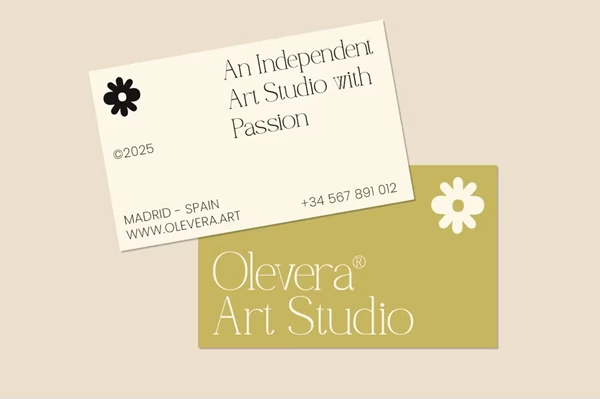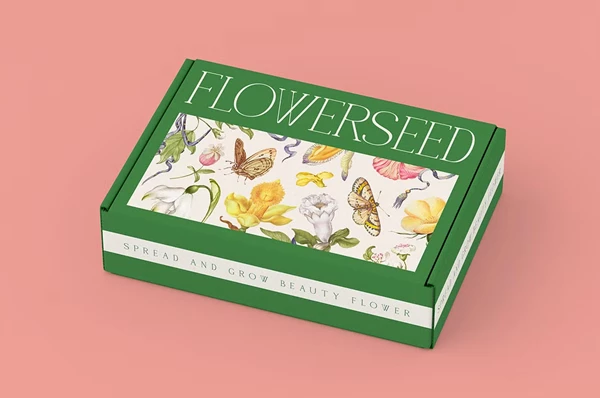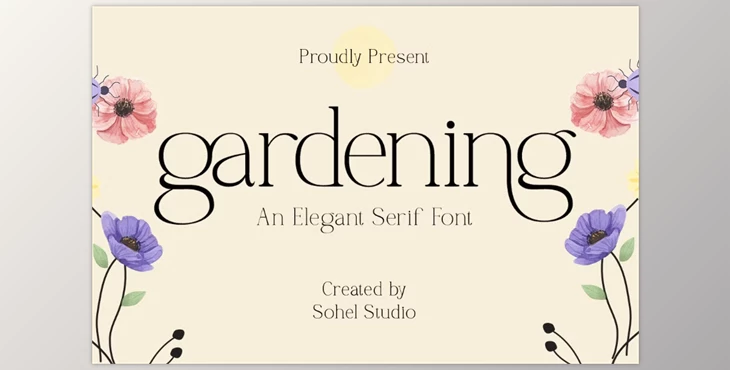
Gardening – Elegant Serif Font:
Gardening is a chic and sophisticated serif font which adds elegance and natural appeal to any creative design. With its sculpted letterforms and distinct stylistic alternates, this font manifests the combination of traditional and contemporary aesthetics. Gardening font is best suited for premium branding, editorial designs, and artistic packaging which need precision and elegance while retaining broad compatibility across major design platforms.
Some great features of Gardening – Elegant Serif Font:
- Sophisticated Thin Serifs: Elegant and graceful serif style gives polished and sophisticated appearance.
- Creative Sublimates: Has self-formed alters that change typography in a distinct way, Creative alternates provide additional character.
- Invincible versatility: Ideal for branding, invitations, magazines, logos, and more.
- Luxurious Impression: For upscale aged and marked rimmed design perfection.
- Complete Character Collection: Comes with uppercase, lowercase letters, numbers, punctuations, symbols, and more.
- Bonus Glyphs: Extra embellishment defines new boundaries for possible designs.